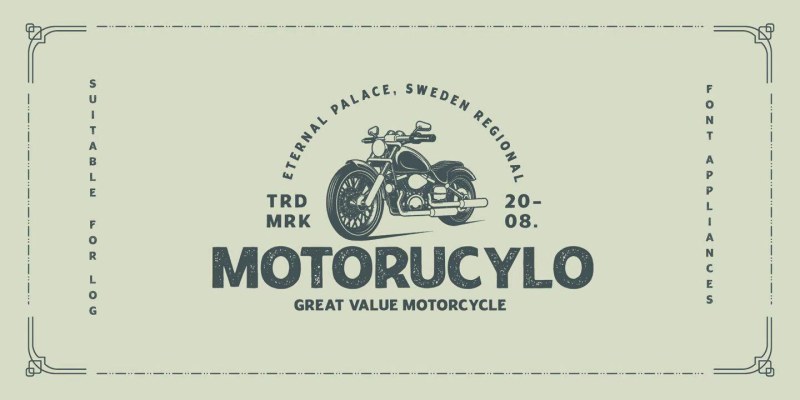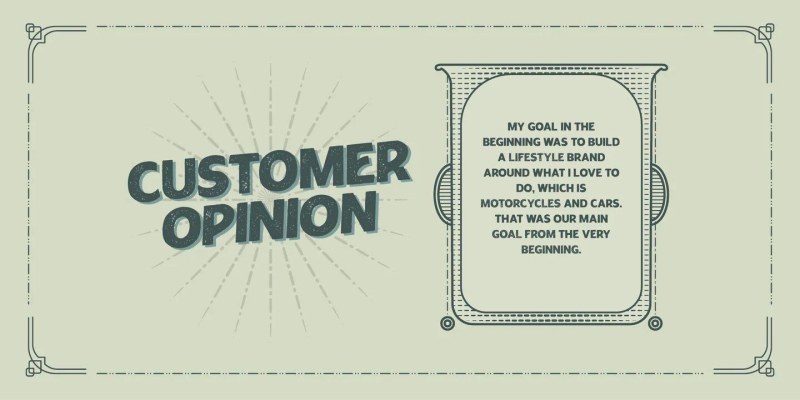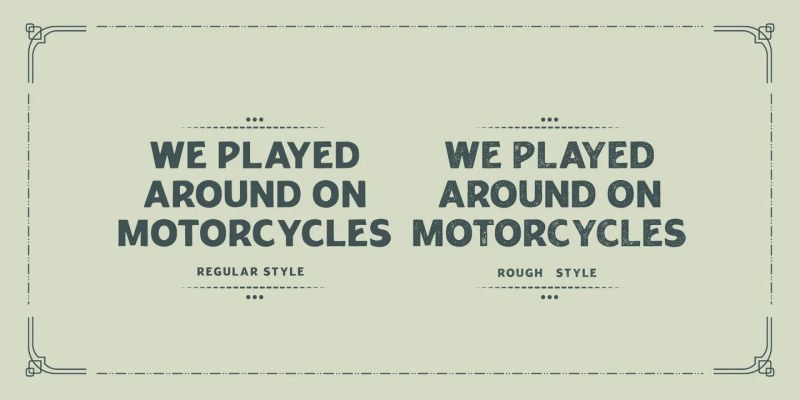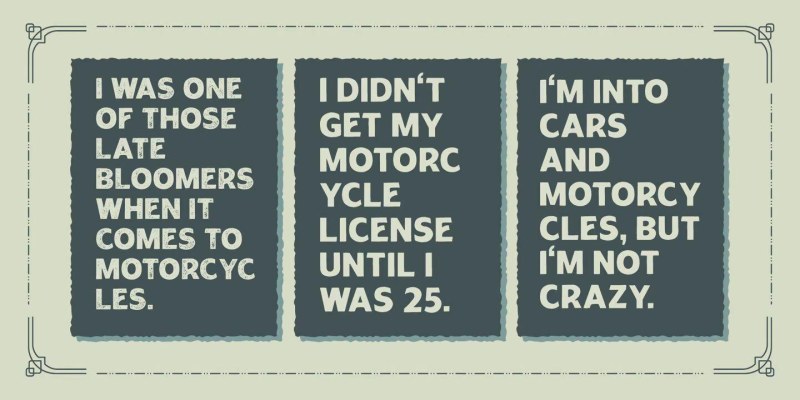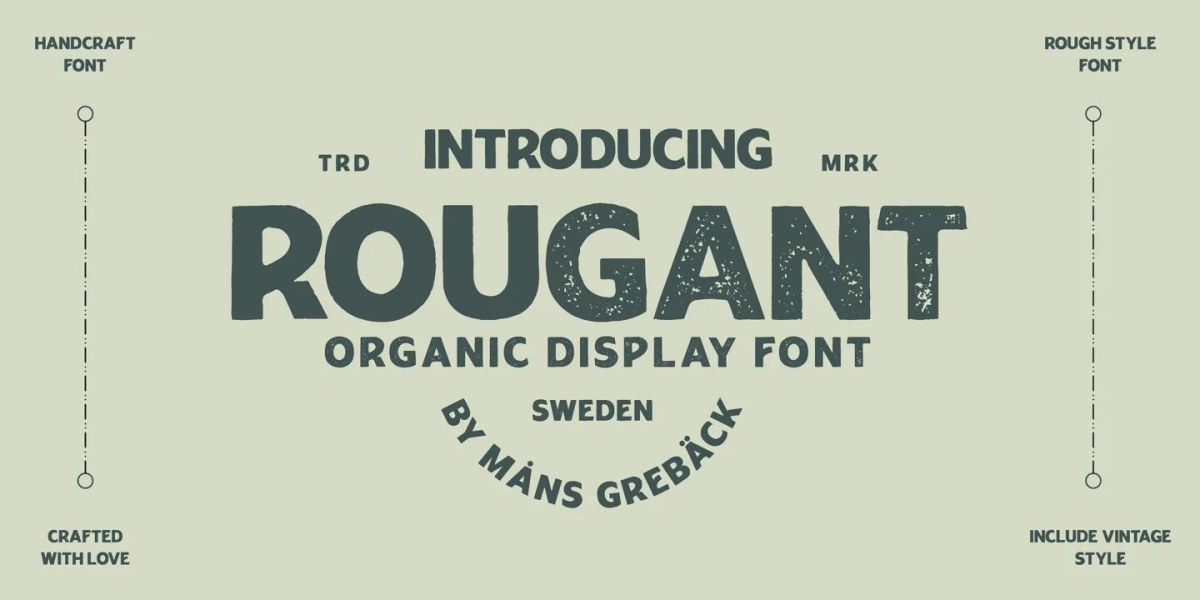
Rougant Font
Rougant is a unique sans-serif typeface. Drawn and created in 2021, this lettering has a distinct vintage style and a strong personality. Use it for a motorcycle logotype or any graphic with a rock’n’roll vibe. Provided in three styles: Rougant Regular/Solid, Rougant Rough and Rougant Bold. Rougant is built with advanced OpenType functionality and is guaranteed top-notch quality. It has extensive lingual support, covering all Latin-based languages from North Europe to South Africa and from America to Southeast Asia. It contains all characters and symbols you’ll ever need, including all punctuation and numbers.
Where Rougant Font works best
Rougant Font is built for size: event posters, hero headlines and billboard-style layouts.
High contrast display type like Rougant Font reads instantly in thumbnails and motion graphics.